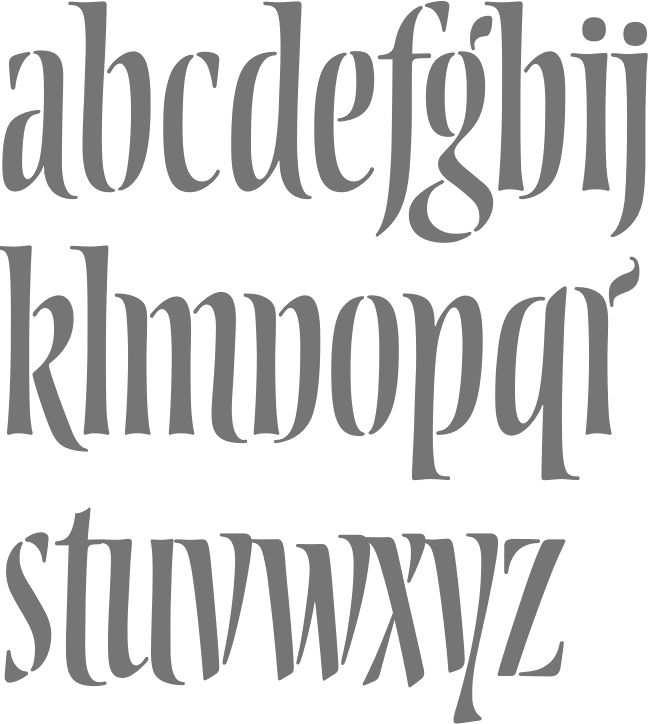
Font Factory [Andy Benedek]
Andy Benedek's (b. Manchester, UK, 1945) Cotswolds-based outfit for "custom fonts and lettering of distinction", founded by him in 1988. Andy (András) made corporate typefaces for Umbro, QZERO, Bowater, Lloyds Bank, Royal Free Hospital, Liptons teas, Gordons gin, Marlboro cigarettes, as well as typefaces for magazines (Royal Academy of Arts, Elle, Blueprint) and for newspapers (The Scotsman). All this was done under the label of The Font Factory. With Michael Johnson and Mike Pratley, he created a font for BT Cellnet. A braille typeface has been developed to aid the production of signage for the blind. In 2001, he co-founded Fine Fonts with Michael Harvey. CV. Typefaces:
• Aesop (2000, with Michael Harvey): developed from book jacket lettering drawn by Michael Harvey for an edition of Aesops Fables.
• Balthasar (2002, with Michael Harvey): a serifed stencil font.
• Braff (2002, with Michael Harvey, for Monotype Imaging): an outline face.
• Fine Gothic (2002, a blackletter typeface co-designed with Michael Harvey): a blackletter family with a Basque A.
• Friezea (Andy Benedek and Michael Harvey, Fine Fonts). The original font dates from ca. 1990. They explain: The origin of this font was a frieze in the RAF Chapel in Westminster Abbey which Michael Harvey was commissioned to design and create. It was comprised of the names of the top brass in Bomber Command, namely Dowding, Harris, Newall, Tedder, Portal and Douglas. The Brief was to cut the letters in bronze and guild them. Instead, they were cut in perspex and guilded. Some twenty years later, the missing upper-case letters were drawn together with the lower-case letters and Frieze, the font, was born.
• Marceta (2003, with Michael Harvey): an eighth-century uncial.
• Mentor (2004, with Michael Harvey, for Monotype Imaging): a Times-Roman style family.
• Mentor Sans (2004, with Michael Harvey, for Monotype Imaging): a sans family.
• Quirky (2010).
• Ruskin (2008, Andy Benedek and Michael Harvey, Fine Fonts). This display serif typeface was originally created as a commission for Michael Harvey to design a signage font for the Dean Gallery in Edinburgh.
• Scorpio (2015). Based on he condensed lettering Michael Harvey drew for the card The Sign of The Nudge which was designed in collaboration with poet Ian Hamilton Finlay. It was digitized after Harvey's death by Benedek.
• Songlines (2001, with Michael Harvey): based upon a pen-drawn script drawn by Michael Harvey to illustrate a poem by Johannes Thurman.
• Tisdall Script (2002, with Michael Harvey): based upon the brush-drawn script lettering of Hans Tisdall, who was the designer of many distinctive lettered book jackets for Jonathan Cape in the 1950s.
• Victoriana (2002, a Victorian font by Andy Benedek and Michael Harvey, Fine Fonts). Named after cyclist Victoria Pendleton.